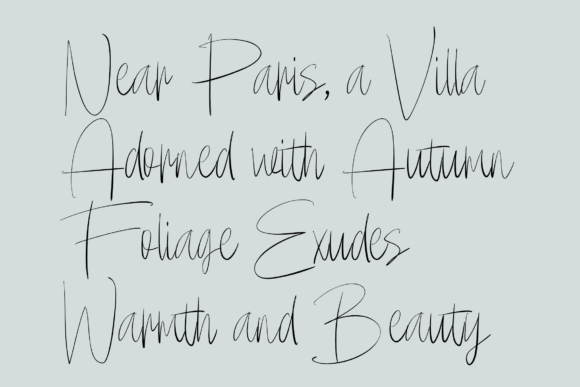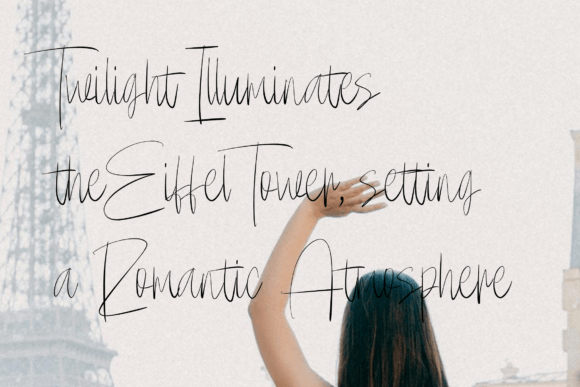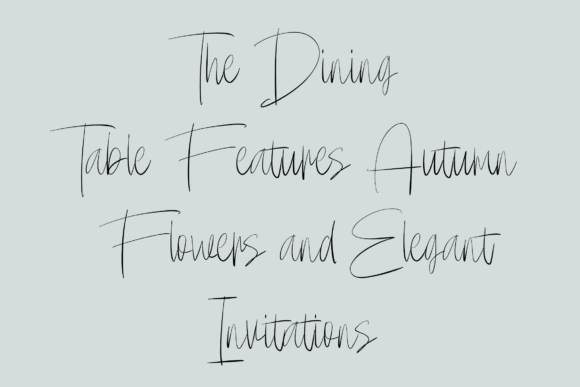
Autumn in Paris Font
Autumn in Paris brings all the cozy, romantic feels of fall straight to your designs. This handwritten font is the perfect blend of natural flow and effortless charm, giving every project that personal, warm touch.Why You’ll Love It: 🍁 Romantic AF: Perfect for wedding invites, love notes, or anything that needs a little extra heart.🍂 Crazy Versatile: From social media posts to product labels, it’s got you covered.✨ Custom Touches: Packed with ligatures and accents that make your text look like it was written just for you.Set the Vibe Autumn in Paris isn’t just a font—it’s a whole mood. Whether you’re creating dreamy event invites or leveling up your brand aesthetic, this font adds instant personality and warmth.Snag Autumn in Paris today and turn your ideas into something unforgettable! 🎨💌